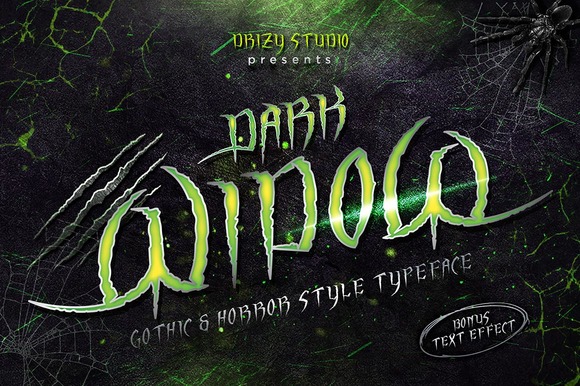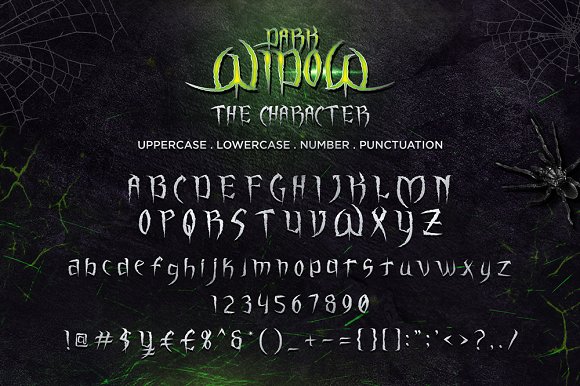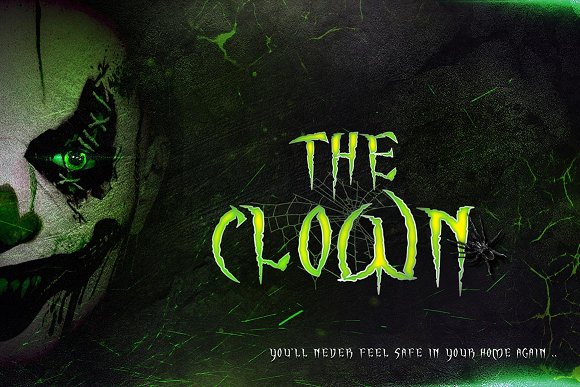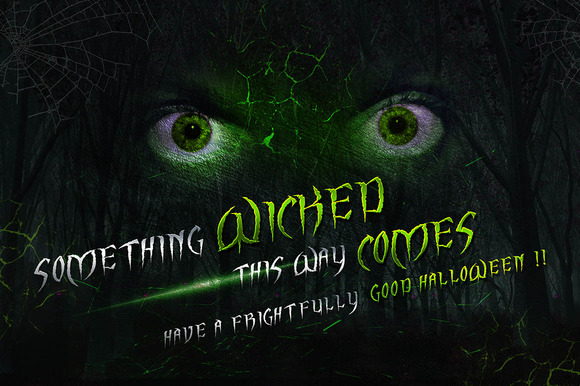
About Dark Widow Font
Dark Widow is a horror style font.
It draws itβs inspiration from old traditional Gothic fonts. The Dark Widow font creates loads of details. The edges of every letter are scratchy and give the font a unique look.